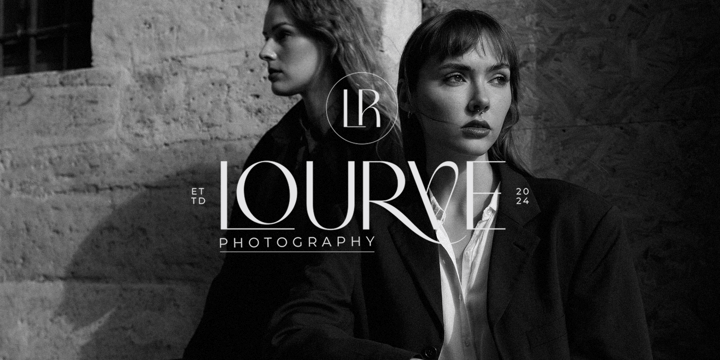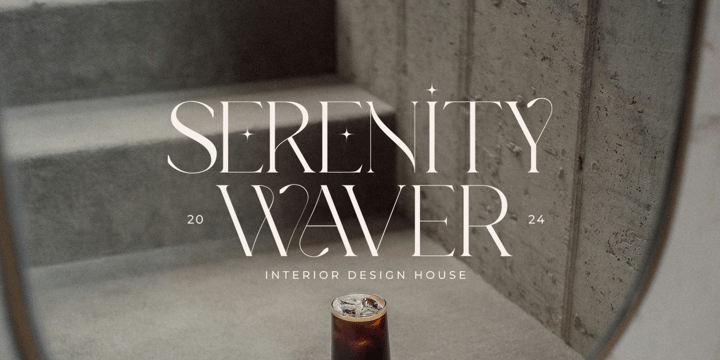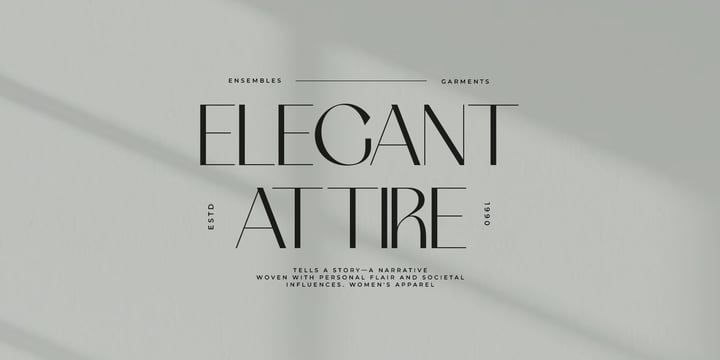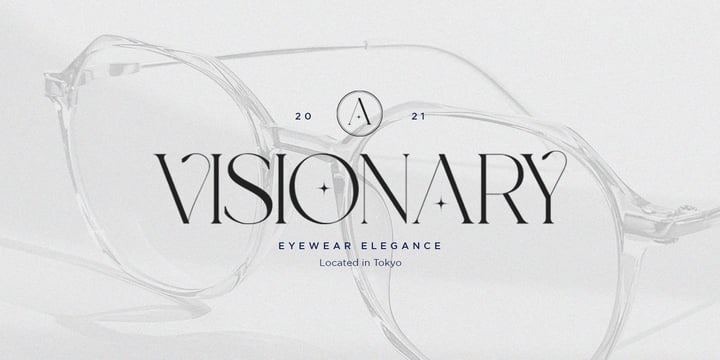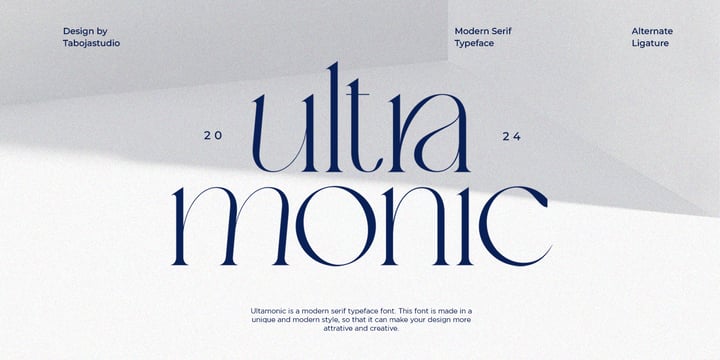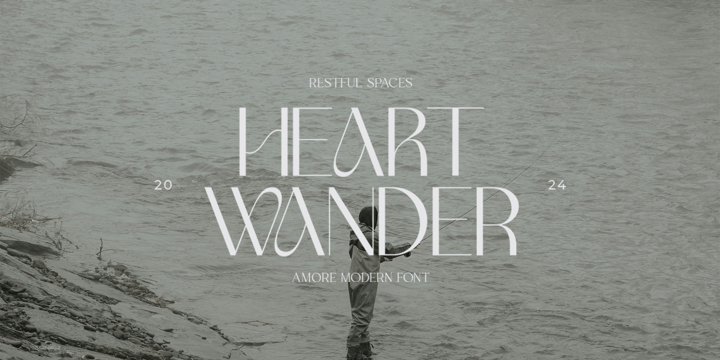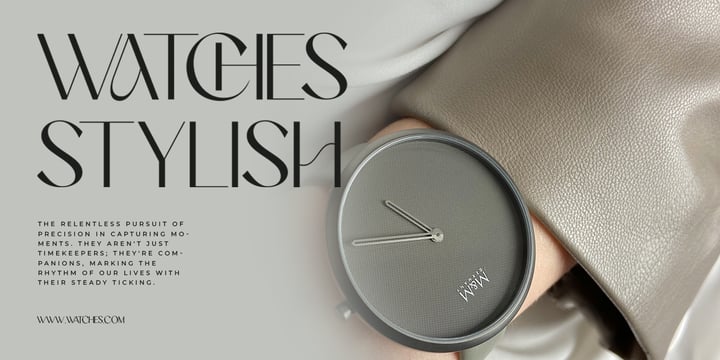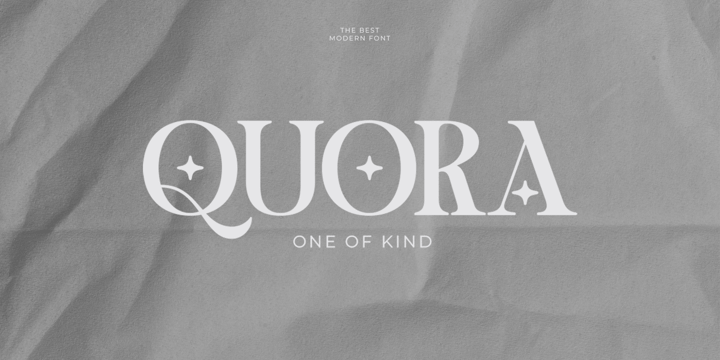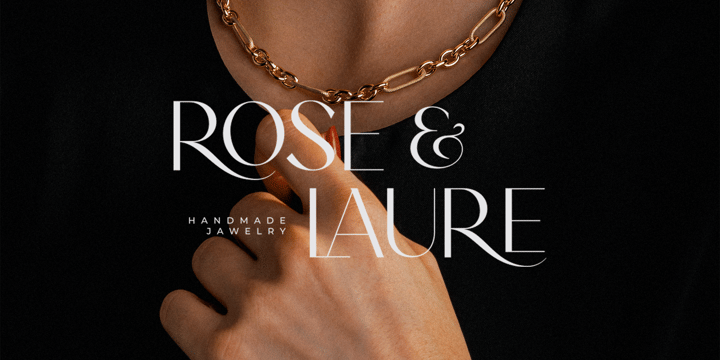
Struggling to find the right fonts for your modern branding projects? Look no further! The Modern Branding Font Bundle III is here to solve your design woes. This bundle is packed with versatile fonts that are perfect for creating bold, professional, and memorable brand identities. Here’s what’s included:
One of Akind Serif – A stylish and unique serif font that’s perfect for standout logos and high-end branding.
Amore Sans Display – A sleek, modern sans serif with a fresh, clean look that’s ideal for both headlines and body text.
Elova Serif – A timeless, elegant serif that adds sophistication to any design, from packaging to editorial layouts.
Ultra Monic Serif – A bold and eye-catching serif font that makes a statement in any branding project.